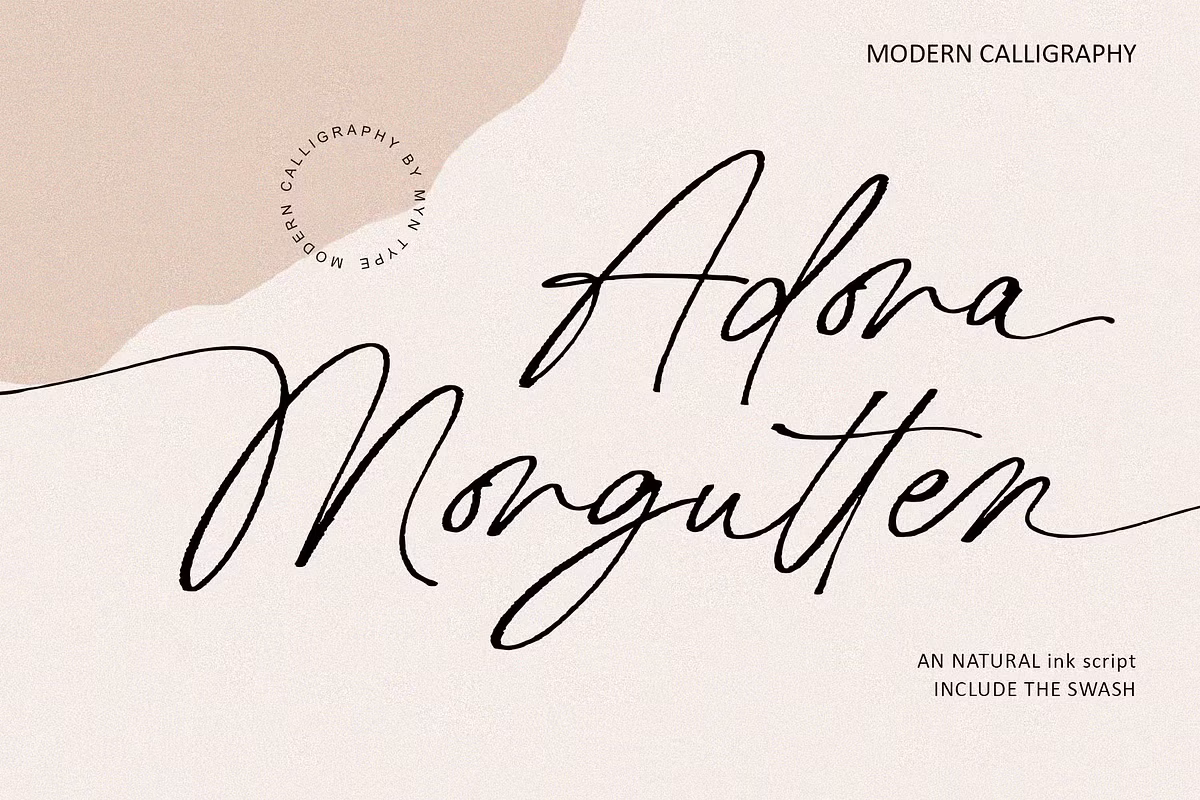
Adora Morgutten – Ink Calligraphy Font Free Download is a beautifully handcrafted script font that mimics the natural flow of ink calligraphy. Perfect for wedding designs, elegant branding, stationery, and heartfelt quotes, this font brings artistic flair and romantic charm to every project.
With graceful strokes and organic textures, Adora Morgutten – Ink Calligraphy Font Free Download captures the authenticity of hand-lettered ink, making it a standout choice for designers seeking a personal, expressive touch. Whether you're crafting love notes or high-end packaging, this font adds warmth and elegance with every letter. Try it today to explore its beauty and potential—then upgrade to a commercial license when you're ready to share your work with the world.